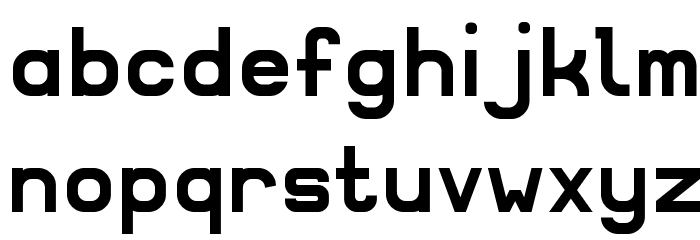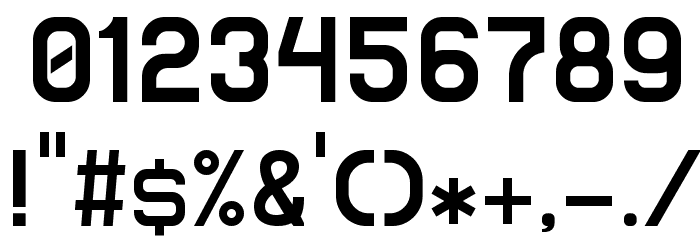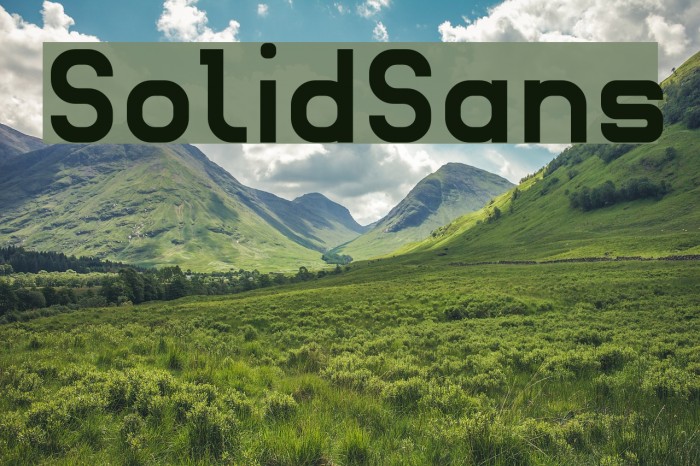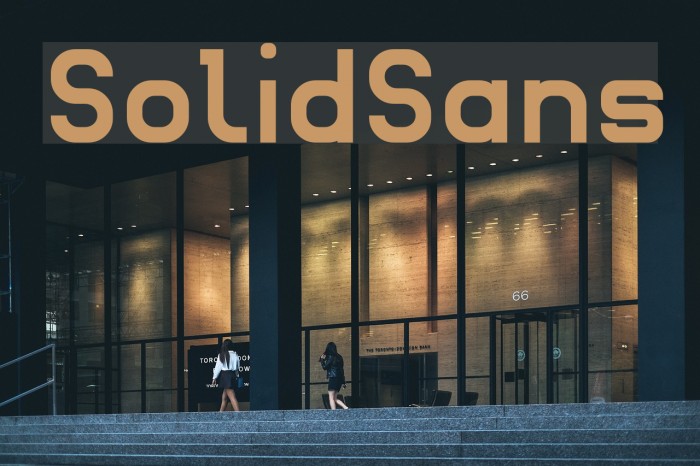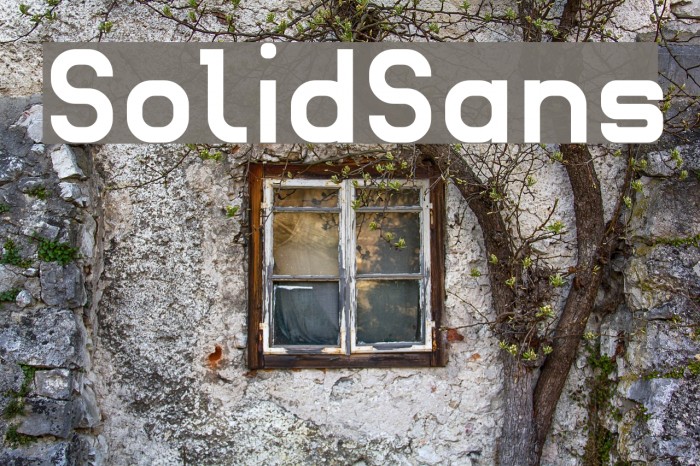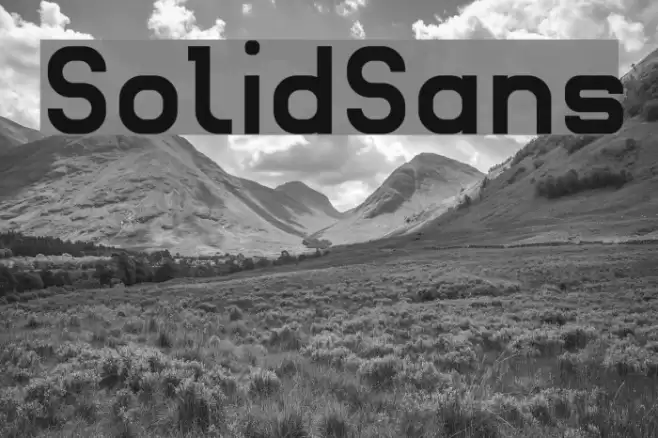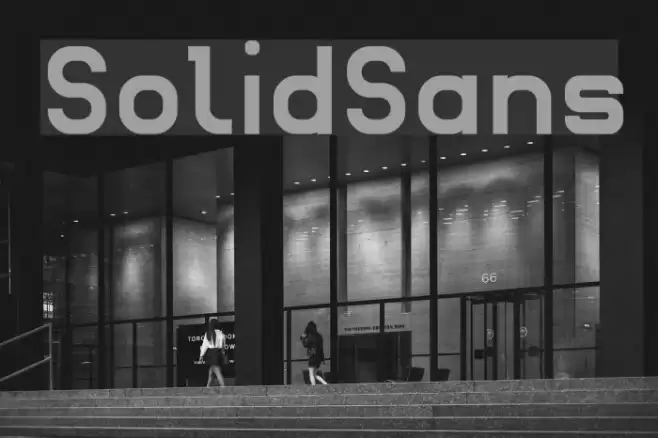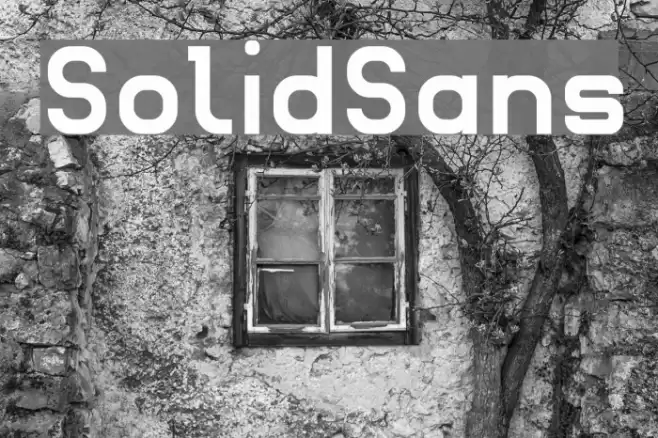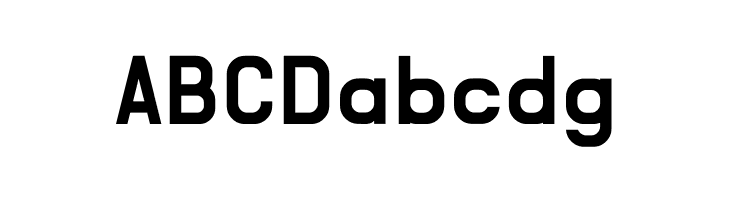
SolidSans Font
This font features a bold, geometric sans-serif style with a modern and clean appearance. The characters are uniform in width, providing a balanced and structured look. The uppercase letters are strong and assertive, while the lowercase letters maintain a consistent height and width, ensuring readability. The numerals are clear and distinct, matching the overall boldness of the font. Special characters are well-integrated, maintaining the geometric aesthetic. This font is versatile, suitable for various design applications where a contemporary and impactful typeface is desired.
A bold, geometric sans-serif font with a modern and clean style.
- Proposed Projects: Ideal for branding, advertising, headlines, and digital content where a strong and modern presence is needed.
- Use Case: Headlines, Logos, Branding